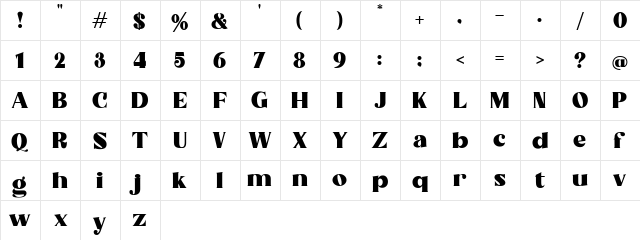
Prima DEMO Solid
| Foundry | Suandana I Pande Made |
| Designer | Suandana I Pande Made |
Design Context for Prima DEMO Typeface
Prima DEMO offers clean, dependable letterforms without strong stylistic allegiance, making it a practical choice for designers who need flexibility.